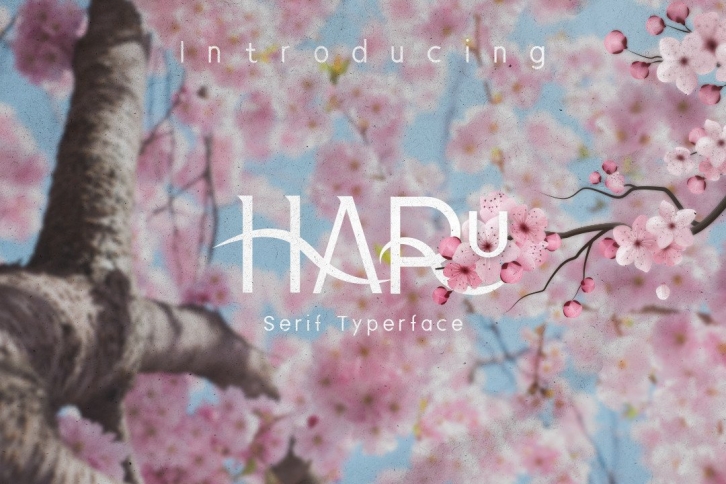
Haru means “Spring” in Japanese. This slab serif font is modern, fresh, easy to read, and versatile.
Haru is best for:
– quote graphics for social media
– logos and branding
– Typography
– website design – think travel blogs, fashion blogs, social media & more
– clean print design, like magazines + flyers